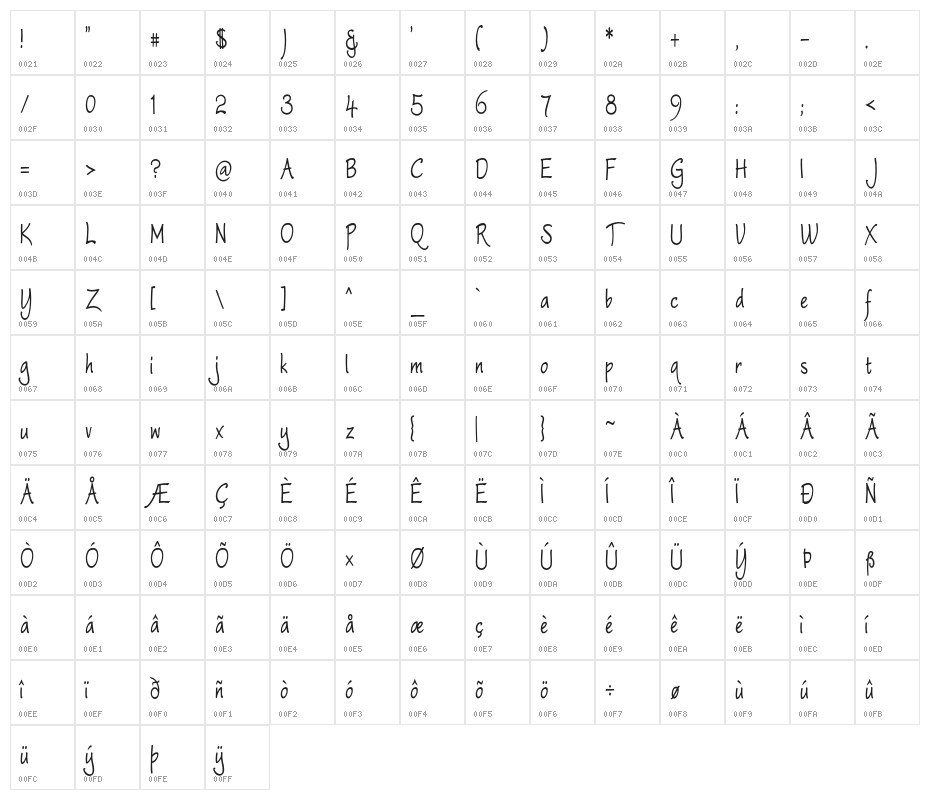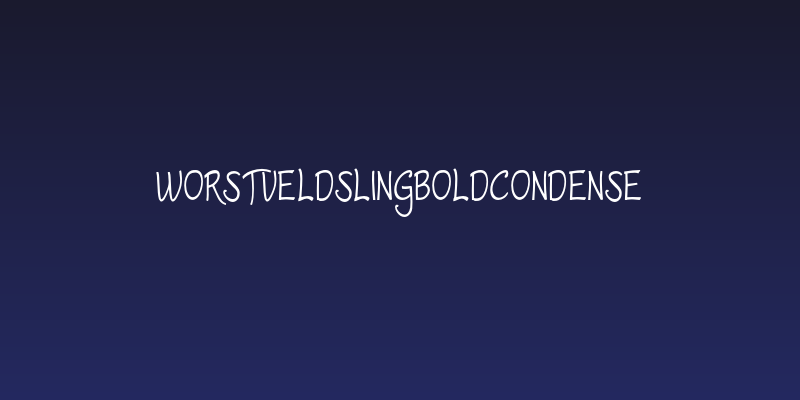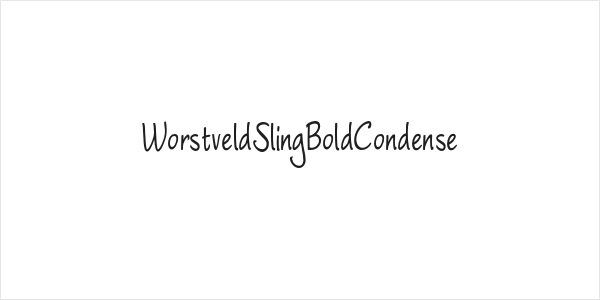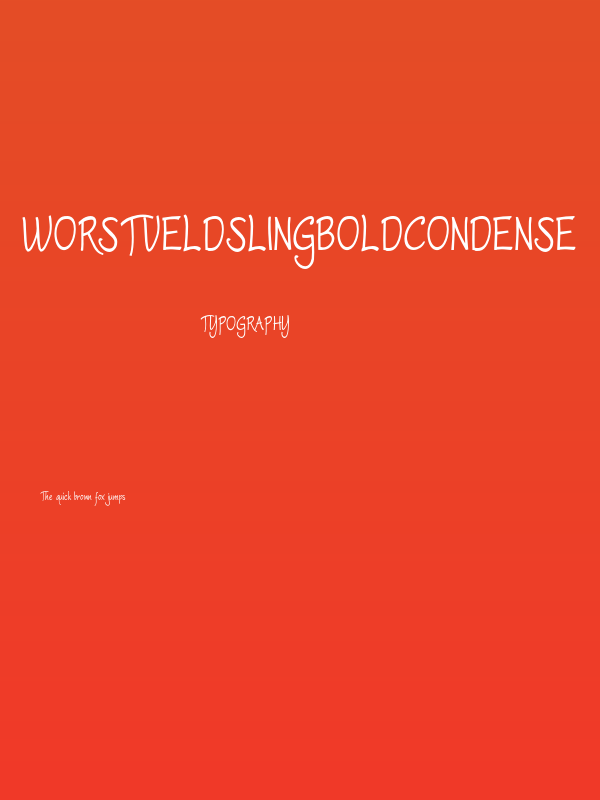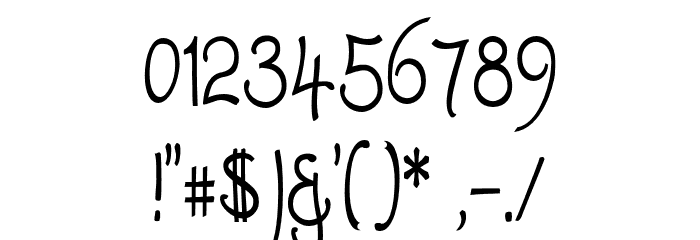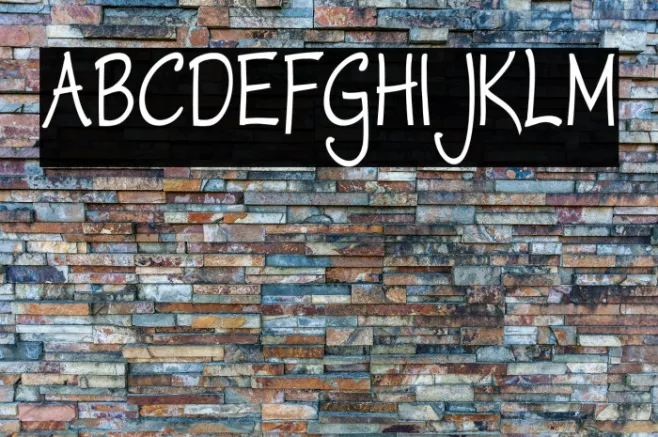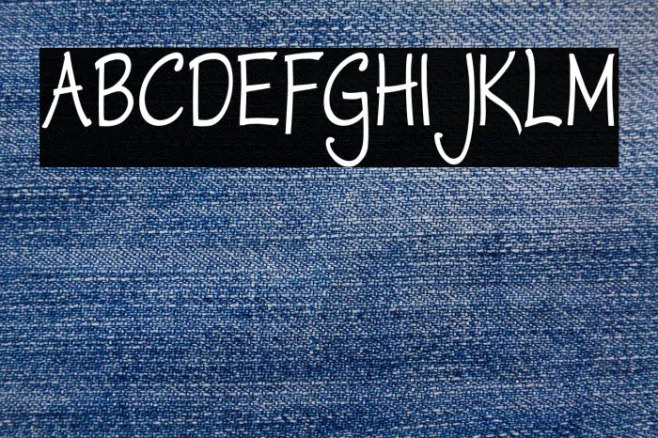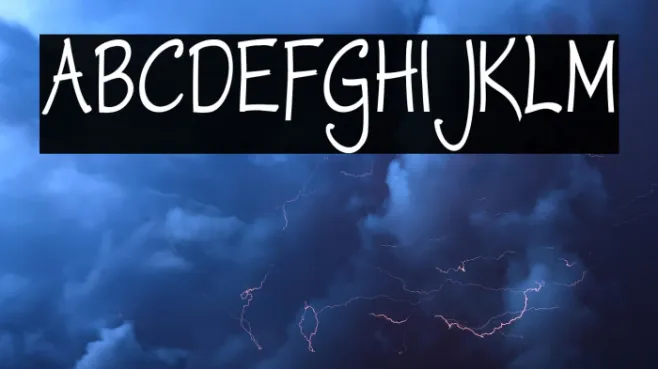
WorstveldSlingBoldCondense Font
WorstveldSlingBoldCondense Description
This font features a playful and whimsical style with a handwritten appearance. The characters are slightly condensed, giving it a unique and quirky look. The strokes are bold, yet maintain a light-hearted feel, with varying thickness that adds to its charm. The uppercase letters are tall and slightly narrow, while the lowercase letters have a more casual and relaxed form. The numerals and special characters maintain the same playful style, making it suitable for creative and informal designs.
| Proposed Projects | Ideal for children's books, greeting cards, playful branding, and creative posters. |